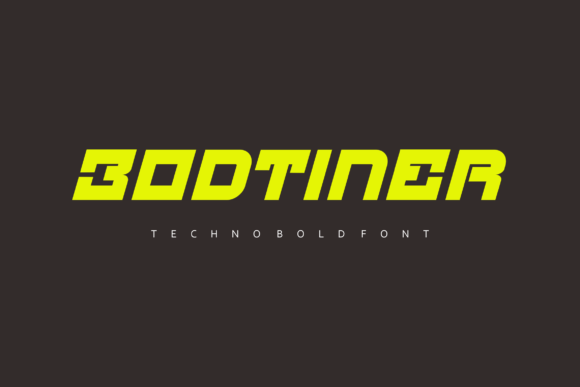
Bodtiner: The Modern Display Font for Creative Product Brands
I remember the exact moment I realized my candle shop branding needed a refresh. I was staring at a mockup of a soy wax label, trying to make the product name pop without looking cluttered or cheap. That is when I decided to test Bodtiner, a cool and modern display font that promised to add instant character to creative projects. As someone who spends hours tweaking SVG files for Cricut machines and designing printable wall art for Etsy listings, I know how much a single typeface can shift the perceived value of a handmade item. After running several real-world tests on stickers, tote bags, and digital downloads, I can confidently say this Display font brings a sophisticated edge that elevates any craft business.
Bodtiner for Candle Labels and Boutique Packaging Design
When you are creating Bodtiner for candle labels and boutique packaging design, the visual impact is immediate and transformative. This Fonts collection offers a distinct personality that feels both contemporary and approachable, perfect for artisanal goods that want to stand out on a crowded shelf. I tested the letterforms on a series of matte black sticker sheets intended for small-batch soaps, and the clean lines held up beautifully even at smaller sizes. Unlike overly decorative scripts that become illegible when cut into vinyl, Bodtiner maintains its structural integrity while still offering enough flair to catch a customer's eye. It strikes that delicate balance between professional polish and handmade charm, making it an ideal choice for product tags, hang tags, and premium gift boxes where first impressions matter most.
Bodtiner in Wedding Invitations and Stationery Collections
Designers looking for Bodtiner in wedding invitations and stationery collections will find a versatile tool that bridges the gap between rustic and ultra-modern. Whether you are crafting digital PDFs for DIY brides or printing physical save-the-date cards, this Display font adds a layer of editorial sophistication that generic typefaces simply cannot match. I used it to create a set of welcome boards for a farmhouse wedding and noticed how the sharp angles contrasted elegantly with softer floral elements. It works exceptionally well for short phrases, names, and titles where emphasis is key, but I would advise against using it for long paragraphs of body text. For maximum elegance, pair Bodtiner with a simple sans serif or a delicate handwritten script to create a balanced hierarchy that guides the guest through the event details effortlessly.
Bodtiner for Digital Downloads and Printable Wall Art
Crafters selling Bodtiner for digital downloads and printable wall art have found a powerful asset in their design toolkit. When you are preparing listing images for your shop, the right typography can turn a standard quote print into a high-value design piece. I ran several tests on A4 and 8x10 inch mockups, checking how the font rendered in different file formats before uploading them as instant download products. The clarity of the strokes ensures that the text remains crisp whether viewed on a smartphone screen or printed on heavy cardstock. It is particularly effective for motivational quotes, nursery decor, and seasonal greetings where the message needs to be bold and readable from a distance. By incorporating this Fonts option into your template library, you offer customers a modern aesthetic that fits seamlessly into contemporary home decor trends.
Bodtiner on Merchandise and Cutting Machine Projects
For makers working with Bodtiner on merchandise and cutting machine projects like shirts, mugs, and tote bags, the vector precision is a game-changer. I spent an afternoon testing the kerning and spacing on a batch of vinyl decals meant for a local craft fair booth, and the results were consistently sharp. Because this is a Display font designed for headlines and short copy, it excels when applied to curved surfaces or small product areas where space is limited. However, if you plan to use it for intricate designs involving very tiny cuts, such as micro-stickers or detailed jewelry tags, I recommend scaling up slightly to ensure the fine details do not break during the weeding process. It pairs wonderfully with bold block letters for layered effects, allowing you to create dynamic compositions that look custom-made rather than mass-produced.
Bodtiner for Shop Branding and Social Media Graphics
Building a cohesive brand identity often starts with choosing the right Bodtiner for shop branding and social media graphics. In a sea of similar-looking product photos, having a consistent typographic voice helps customers recognize your work instantly across Instagram, Pinterest, and your online store. I used this font to design a series of promotional banners and story highlights, and the modern feel gave my content a polished, studio-quality appearance. While it is fantastic for logos and hero images, remember to check the included styles and alternate characters before committing to a full commercial license for your business. Ensuring you have access to all necessary weights and multilingual support is crucial if you plan to expand your product line internationally. Ultimately, Bodtiner proves that a cool and modern display font can truly help you enjoy the results of your creative labor by turning simple ideas into professional brand assets.